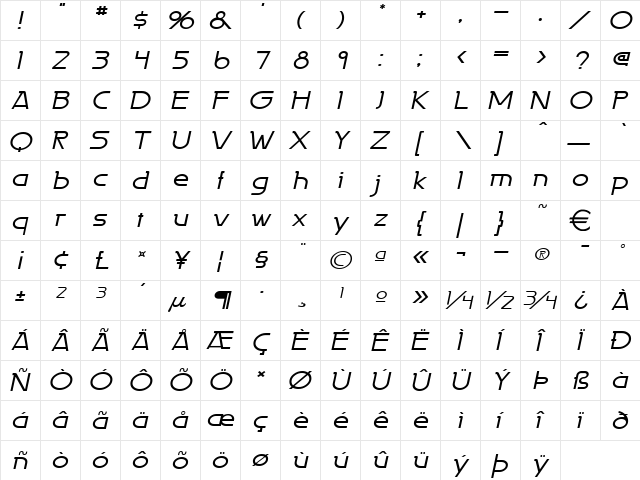
PersiaWide Italic
Design Context for PersiaWide Typeface
PersiaWide offers clean, dependable letterforms without strong stylistic allegiance, making it a practical choice for designers who need flexibility. The slanted form adds forward momentum and visual energy.
Pro Tip: Try PersiaWide for annotation and caption copy alongside an upright companion — the contrast in angle creates a dynamic but ordered typographic system.